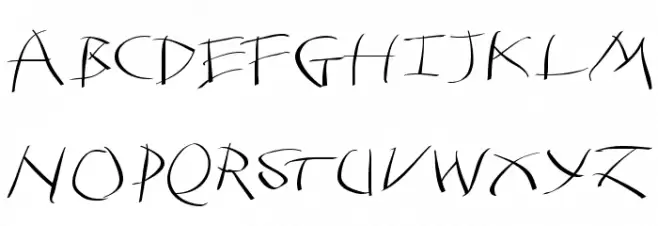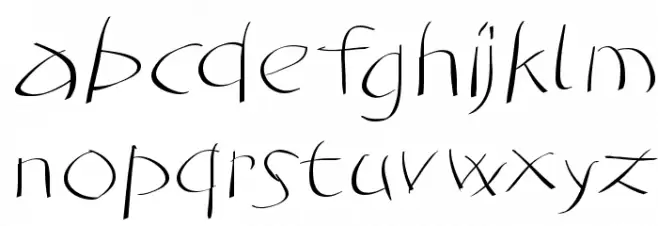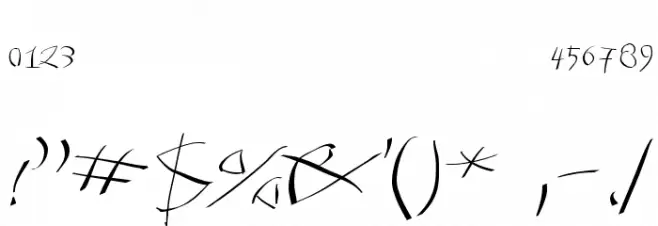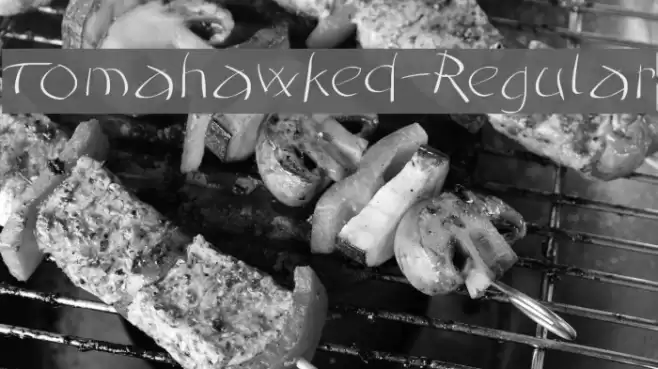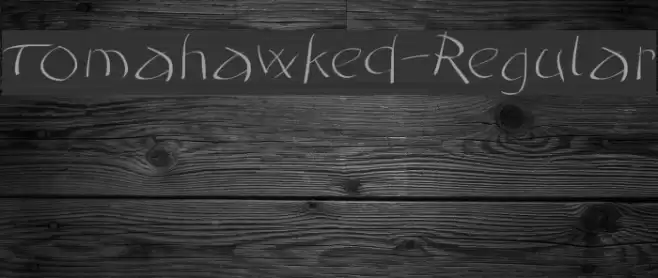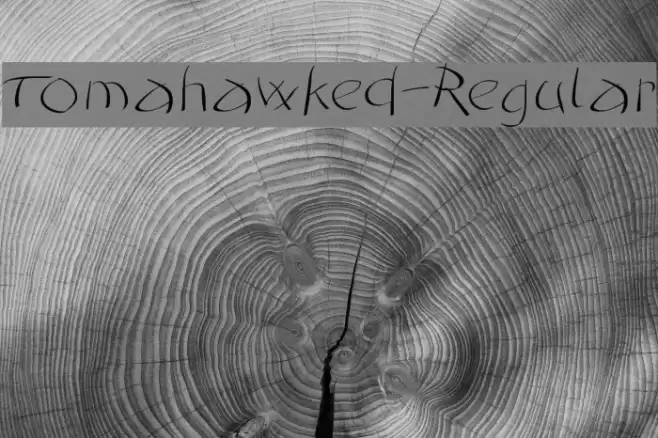
Tomahawked-Regular Font
Tomahawked-Regular Description
This font features a unique and artistic style with a hand-drawn appearance. The characters are slightly irregular, giving it a dynamic and expressive feel. The strokes vary in thickness, adding a sense of movement and energy. The uppercase letters are bold and distinctive, while the lowercase letters maintain a consistent flow. The numerals and special characters complement the overall design, making it versatile for creative projects. Its playful yet sophisticated look makes it suitable for a variety of uses, from branding to artistic endeavors.
An artistic, hand-drawn font with dynamic strokes and expressive character.